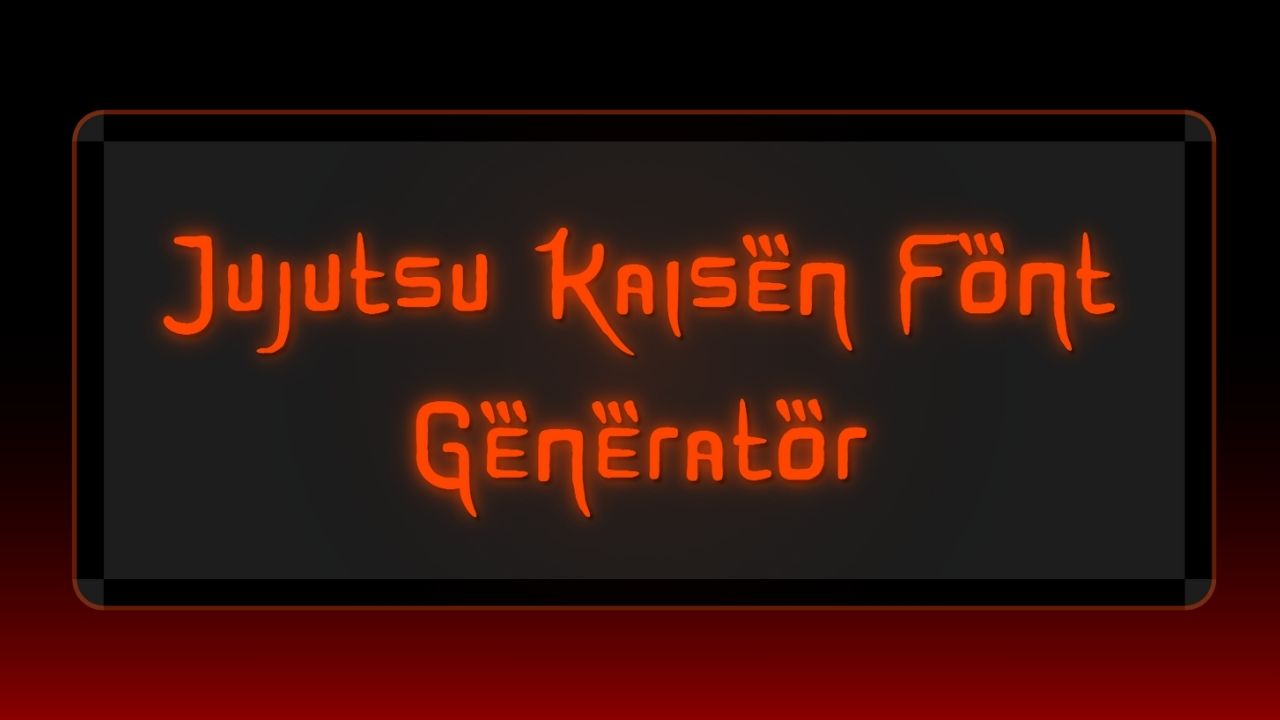
Jujutsu Kaisen Font Generator
Jujutsu Kaisen Font & Text Generator
What is the Jujutsu Kaisen Font Generator?
The Jujutsu Kaisen Font & Text Generator lets you transform any text into the iconic, cursed style inspired by the hit anime Jujutsu Kaisen. Perfect for fans, designers, and content creators, this tool makes it easy to generate JJK fonts for Instagram bios, YouTube thumbnails, Discord, and more—no design skills needed! Download our complete font package above for offline use in your favorite design software.
Features
• Authentic Jujutsu Kaisen font look with cursed energy effects
• Customizable colors, sizes, and special effects
Creative Uses for JJK Fonts
🎨 Fan Art & Graphics
Create authentic JJK-themed artwork, posters, and digital designs with official-style typography.
📱 Social Media
Stand out on Instagram, TikTok, and Twitter with cursed technique-inspired text and usernames.
🎮 Gaming & Streaming
Perfect for Discord usernames, Twitch overlays, and gaming clan logos.
🛍️ Merchandise Design
Design custom t-shirts, stickers, and fan merchandise with authentic JJK styling.
Why Use a Jujutsu Kaisen Font Generator?
Stand out online with unique, anime-inspired typography! Whether you’re making memes, fan art, banners, or just want a cool username, our JJK font generator gives you the power to express your fandom in style. The downloadable font package ensures you can use these fonts in any design software for professional-quality results.